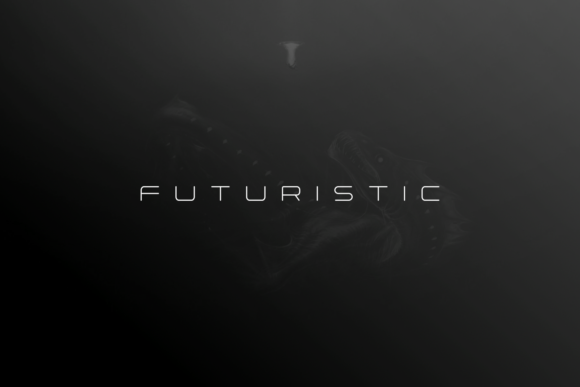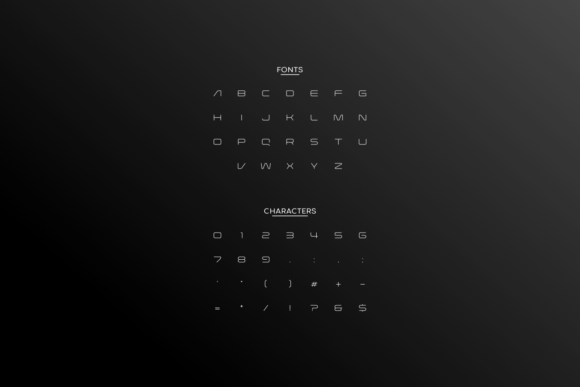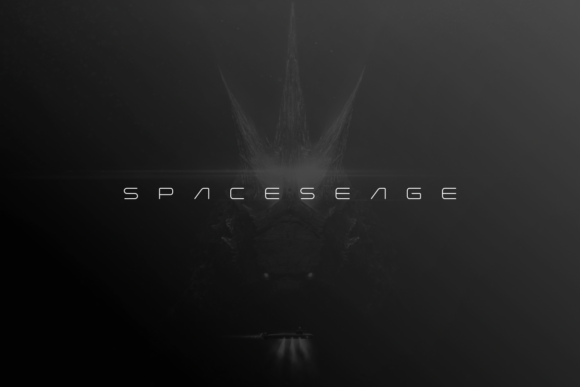
The Debuciner Font: A Modern Marvel for Your Designs
I’ll never forget the time I was working on a futuristic web design project, and I just couldn’t find the right font to bring my vision to life. My client wanted something sleek, modern, and techno-inspired, but everything I tried seemed to fall flat. That was until I stumbled upon the Debuciner font. ✨
Debuciner is a modern and futuristic display font, with a thin and contemporary version that’s perfect for writing web designs or pretty much anything that could benefit from a techno vibe. In this article, I’ll share my honest review of Debuciner, a practical guide on how to use it, and some awesome alternatives to try.
- ✨ Unique and futuristic design: Debuciner’s sleek lines and modern aesthetic make it perfect for tech-inspired projects.
- ✅ Highly legible: Despite its thin strokes, Debuciner remains clear and readable, even at smaller sizes.
- 💻 Versatile: This font works beautifully for headings, titles, and short paragraphs, making it a great addition to any design project.
While Debuciner is an amazing font, there are a few things to keep in mind:
- 🤔 Limited use for body text: Due to its thin strokes, Debuciner might not be the best choice for longer paragraphs or body text.
- ⚠️ Glyph support: Some users have reported issues with certain glyphs or special characters, so be sure to test it thoroughly.
The Story Behind Debuciner
Debuciner was designed with the goal of creating a modern, futuristic font that’s both sleek and legible. Inspired by the world of technology and innovation, Debuciner’s creator aimed to craft a font that’s perfect for web designs, digital interfaces, and any project that needs a touch of futurism.
Q: What type of projects is Debuciner best suited for?
A: Debuciner is ideal for web designs, digital interfaces, and any project that requires a modern, techno-inspired font.
Q: Can I use Debuciner for body text?
A: While Debuciner is highly legible, its thin strokes might make it less suitable for longer paragraphs or body text. It’s best used for headings, titles, and short text snippets.
Q: Does Debuciner support OpenType features?
A: Yes, Debuciner supports OpenType features, including stylistic alternates and glyphs. You can access these features in compatible design software like Adobe Creative Cloud.